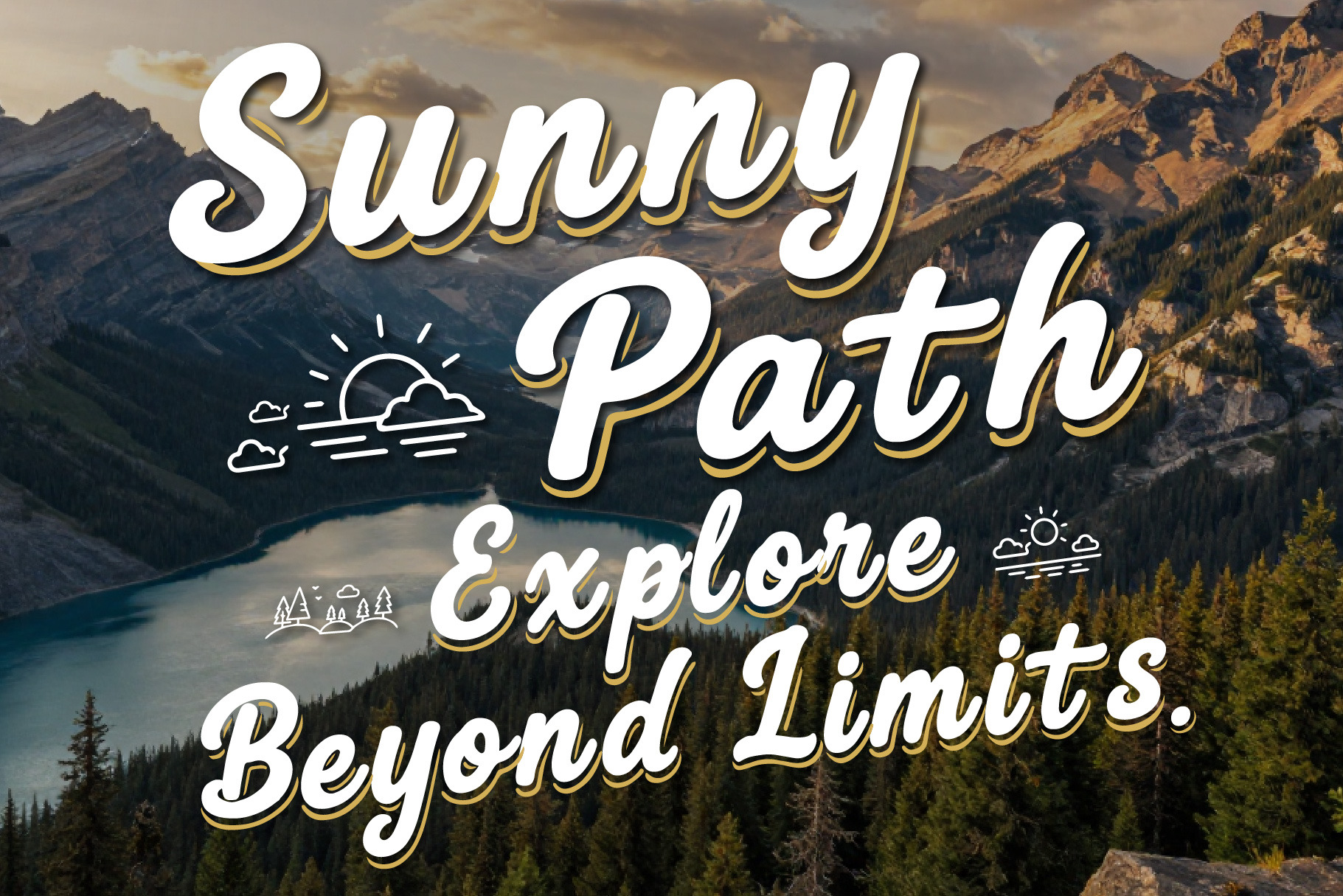
SunnyPath - Wander Freely Typeface
SunnyPath is a sleek adventure script font inspired by unforgettable road trips, sunlit coastlines, mountain trails, and endless summer escapes. Featuring smooth flowing strokes with a modern handcrafted touch, SunnyPath delivers a perfect balance of elegance and outdoor spirit. Whether you're designing travel branding, vacation posters, camping gear, beach apparel, or social media content, this versatile script brings warmth, freedom, and personality to every project.
Crafted for creatives who love exploration, SunnyPath feels natural, stylish, and effortlessly readable across both print and digital designs.